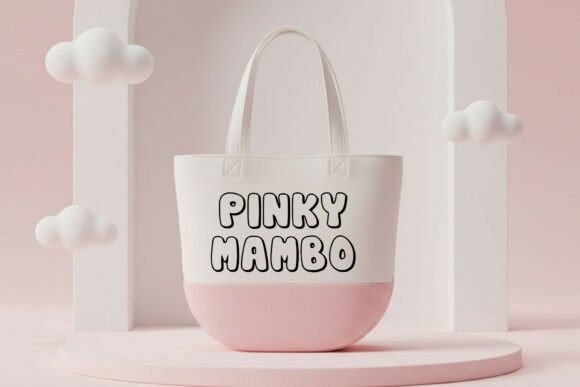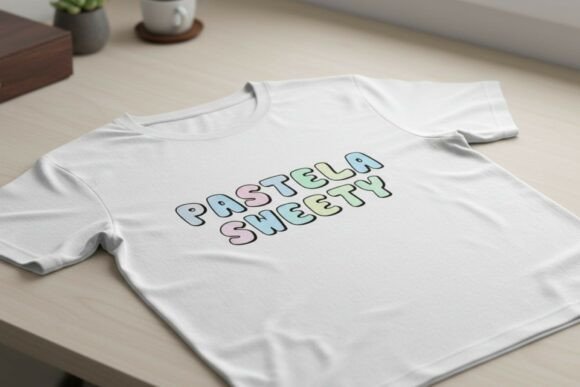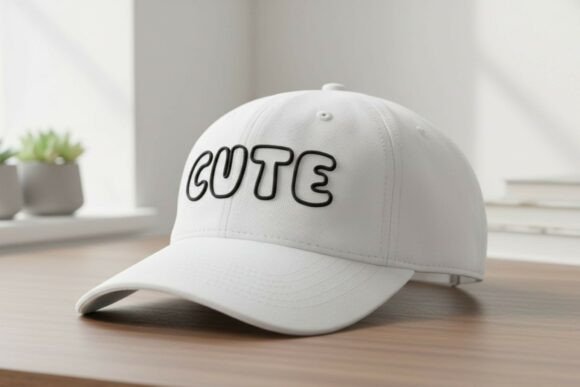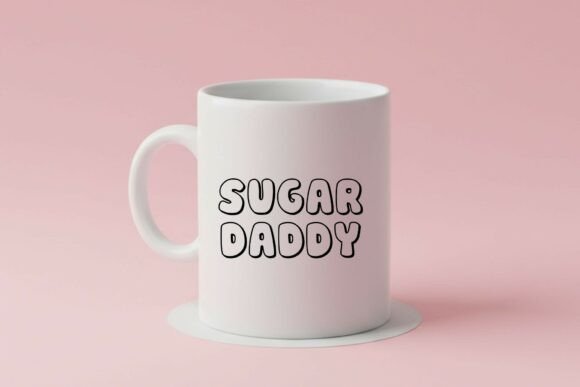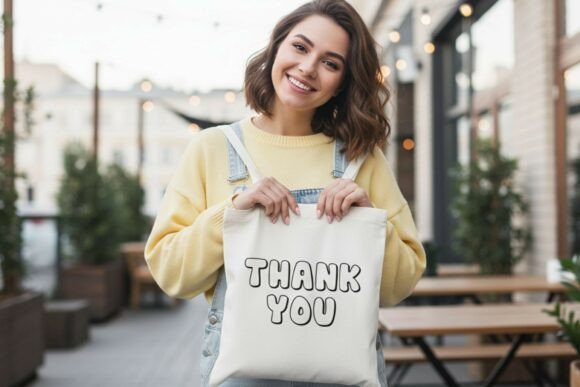
Introduction to Pastela Sweety Font Font
Fonts play a crucial role in design, and the Pastela Sweety Font font is a typeface that brings both character and versatility to any project. Whether you’re working on a branding project, a website, or a print design, the Pastela Sweety Font font offers a unique style that can elevate your work.
Pastela Sweety is a cute and playful outline font designed to bring a soft, cheerful, and whimsical touch to your creative projects.
Featuring rounded bubble-style characters with clean outlines, this font is perfect for kids-themed designs, pastel aesthetics, branding, and fun typography needs Its sweet and friendly appearance makes it ideal for invitations, stickers, t-shirt designs, social media graphics, packaging, and more.
Key Features of Pastela Sweety Font Font
Why Choose Pastela Sweety Font Font?
The Pastela Sweety Font font is more than just a typeface – it’s a design tool that helps you communicate your message with style and clarity. Its unique character set and versatile design make it suitable for a wide range of applications, from elegant invitations to bold headlines.
With its carefully crafted letterforms and balanced proportions, the Pastela Sweety Font font ensures readability and visual appeal across all mediums.
What makes Pastela Sweety Font font special?
The Pastela Sweety Font font stands out with its unique design, exceptional readability, and versatility across various design applications.